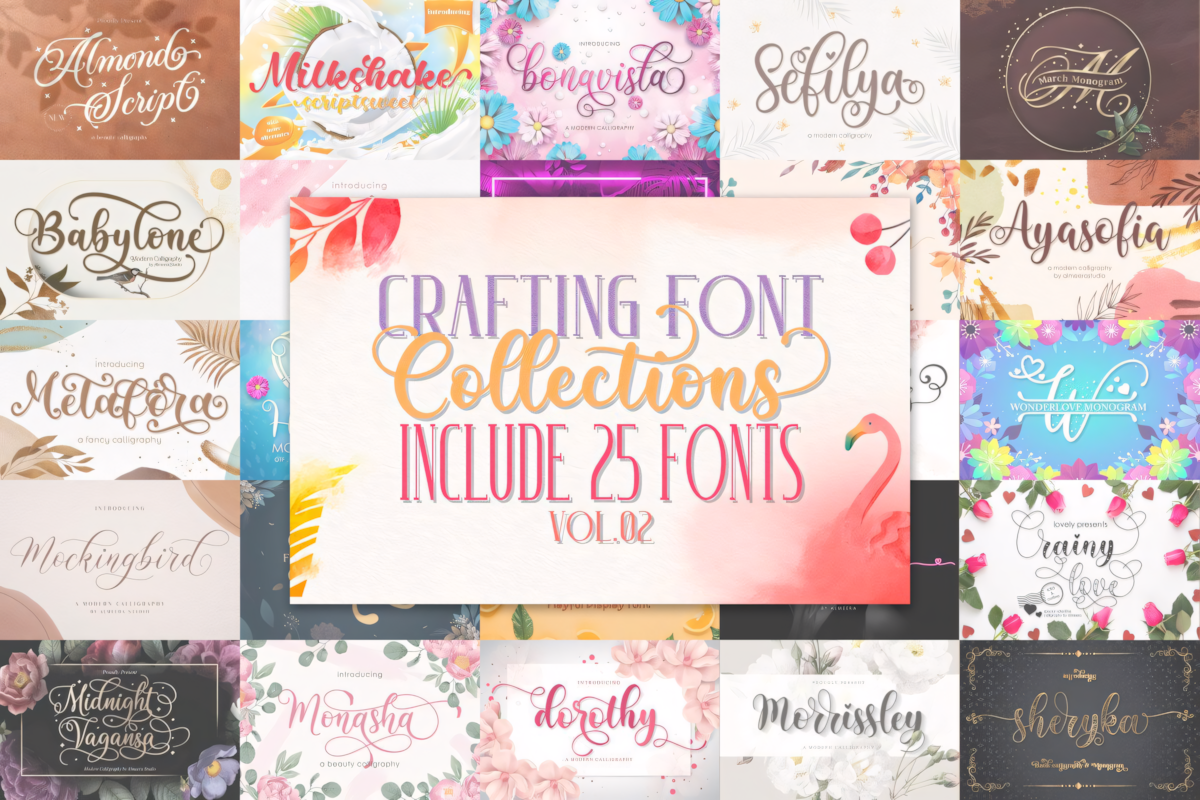
Crafting Font Bundle Vol.02 brings together 25 enchanting fonts for you to use in your upcoming projects. Some of these handwritten fonts feature stunning swashes—perfect for adding an elegant touch to your designs!